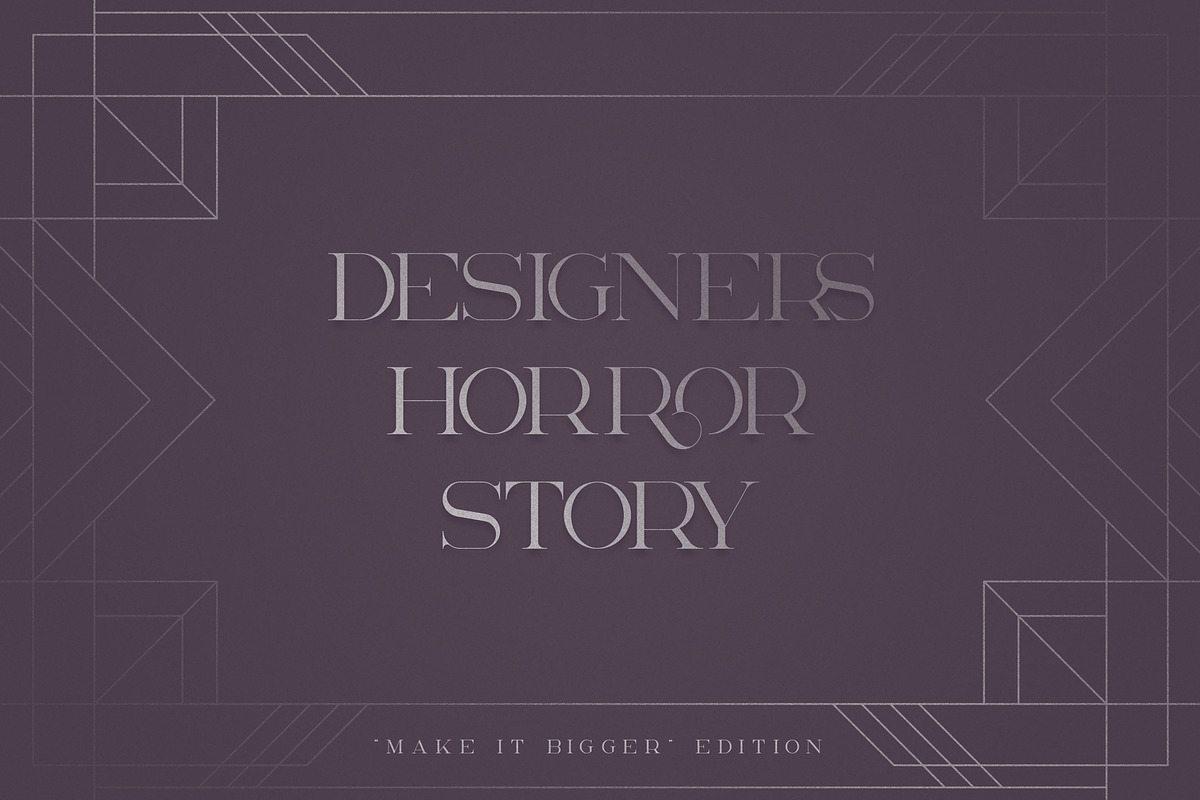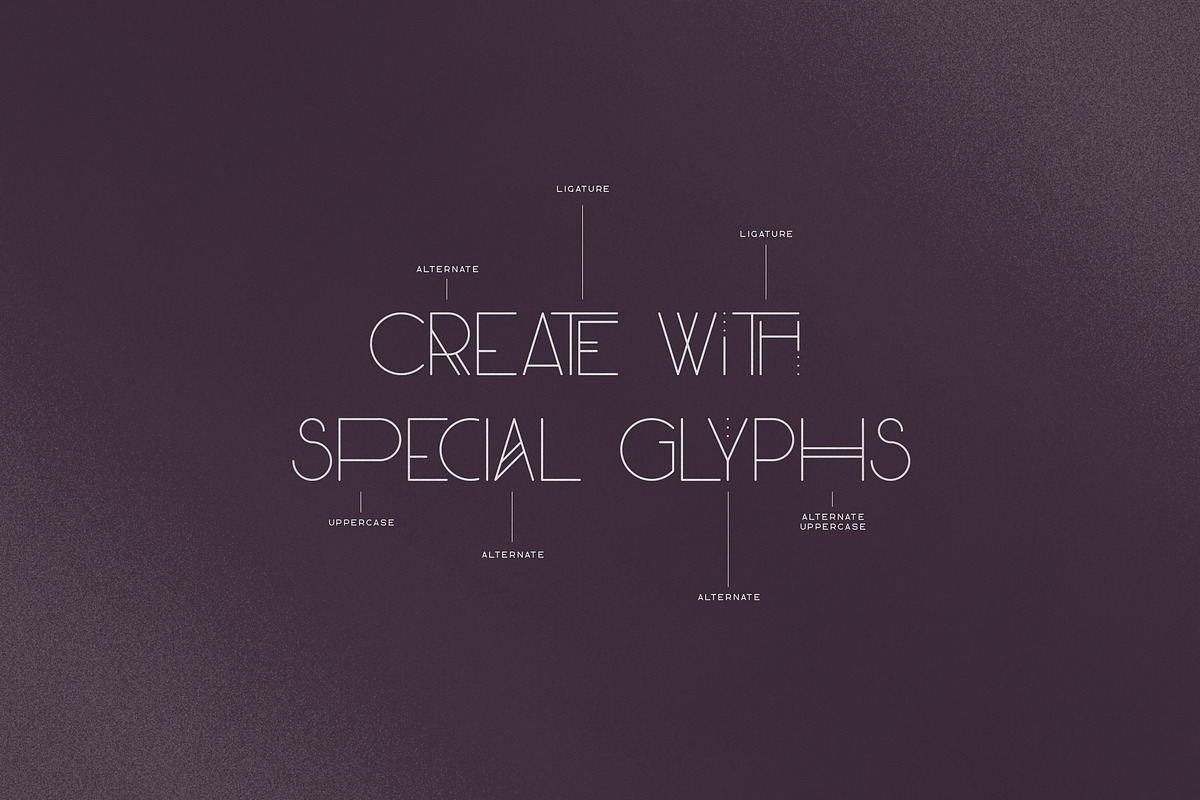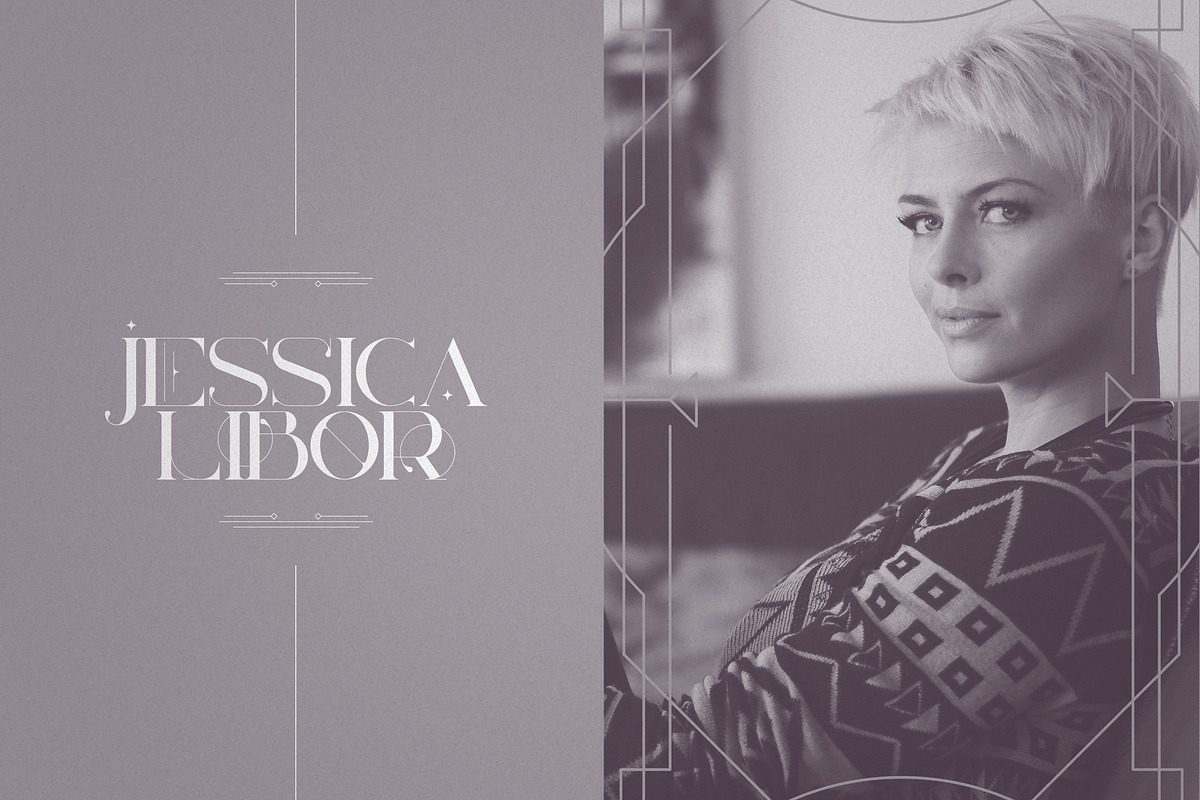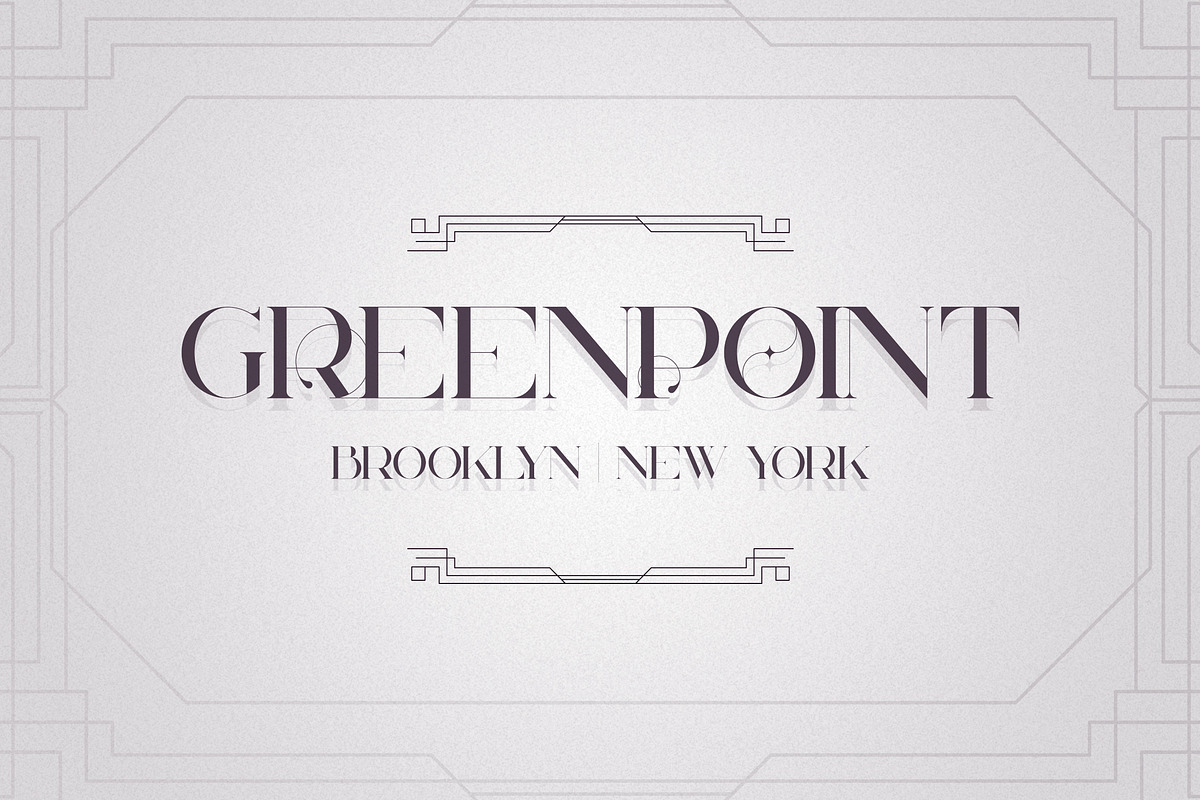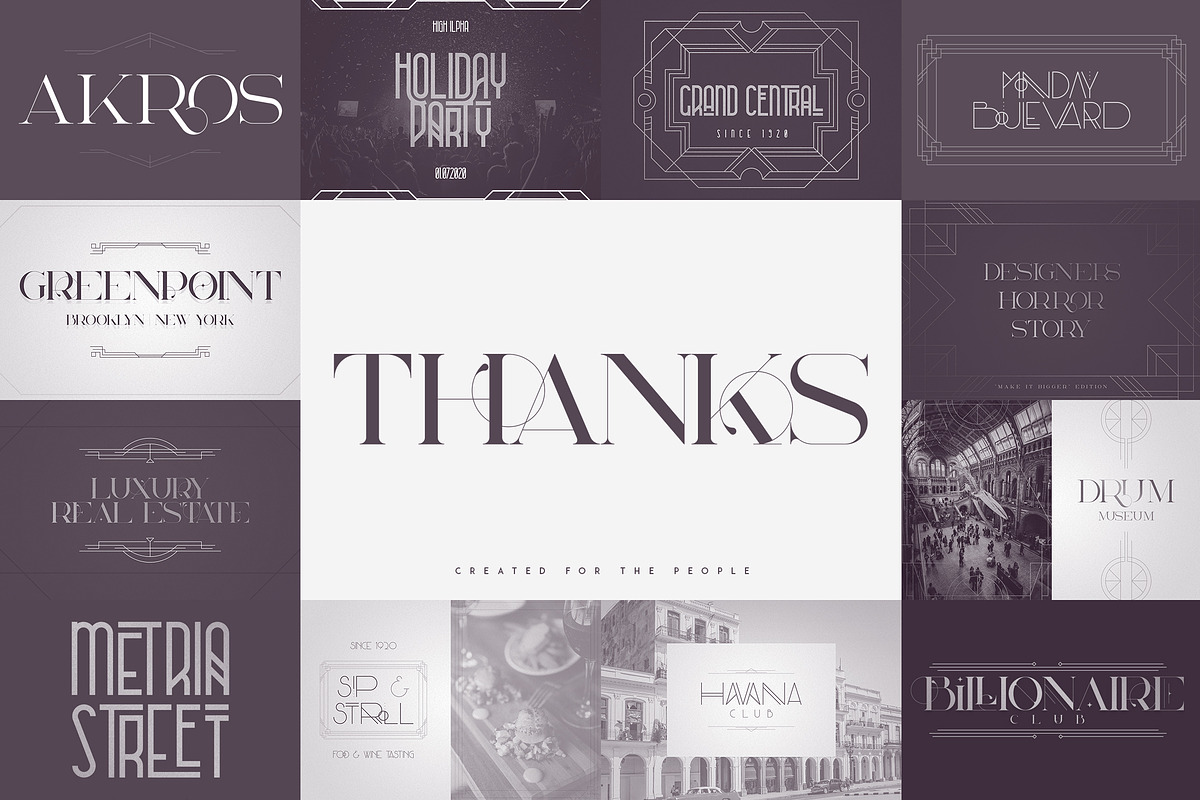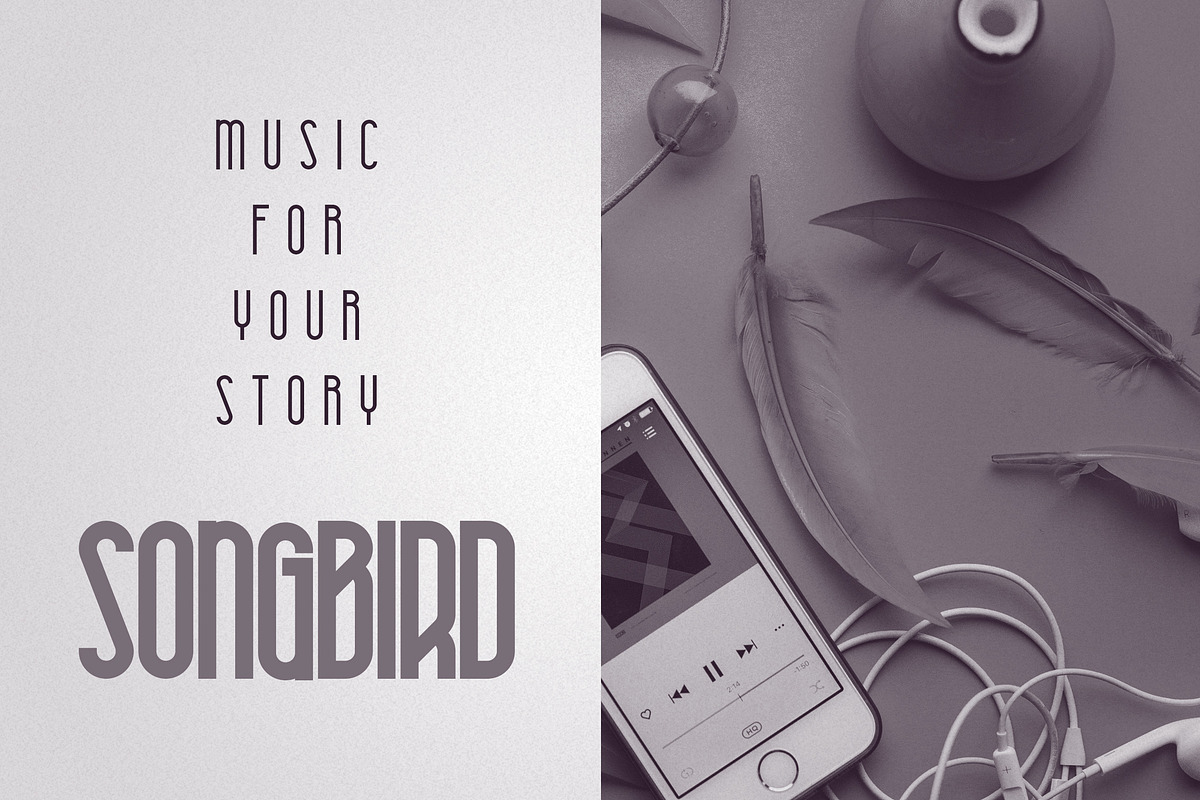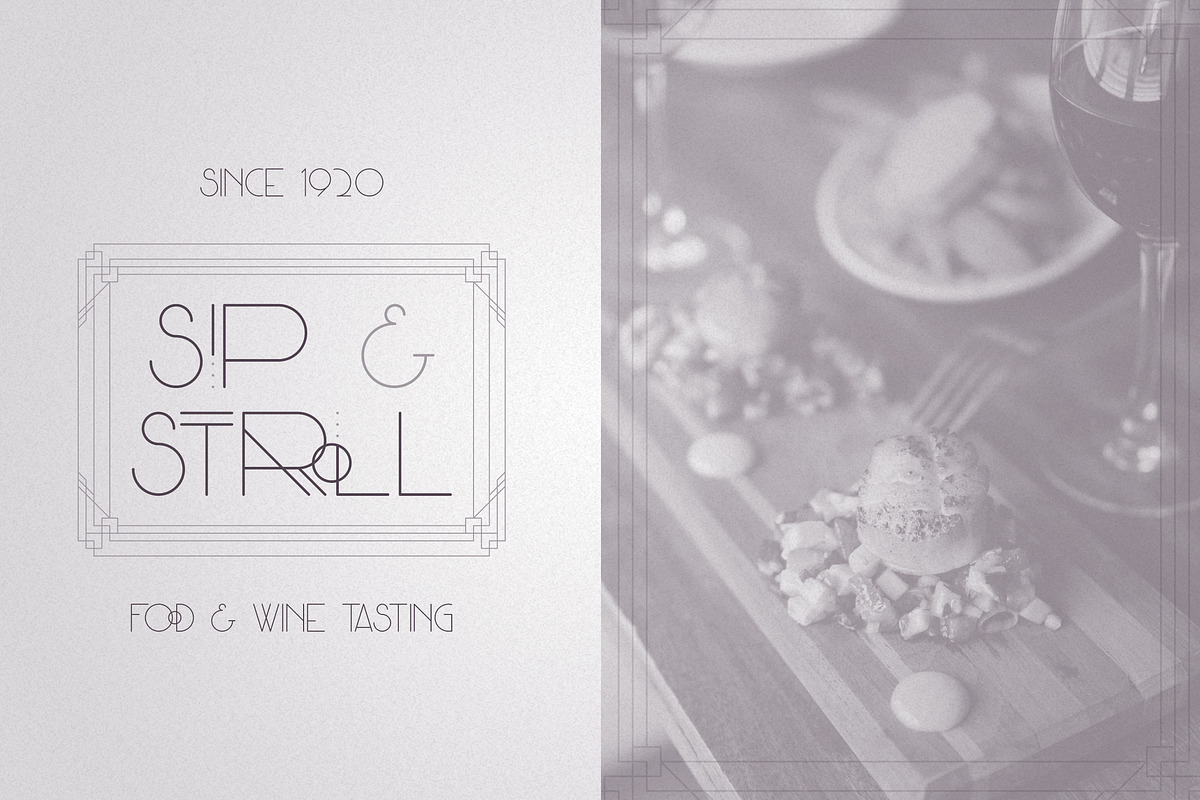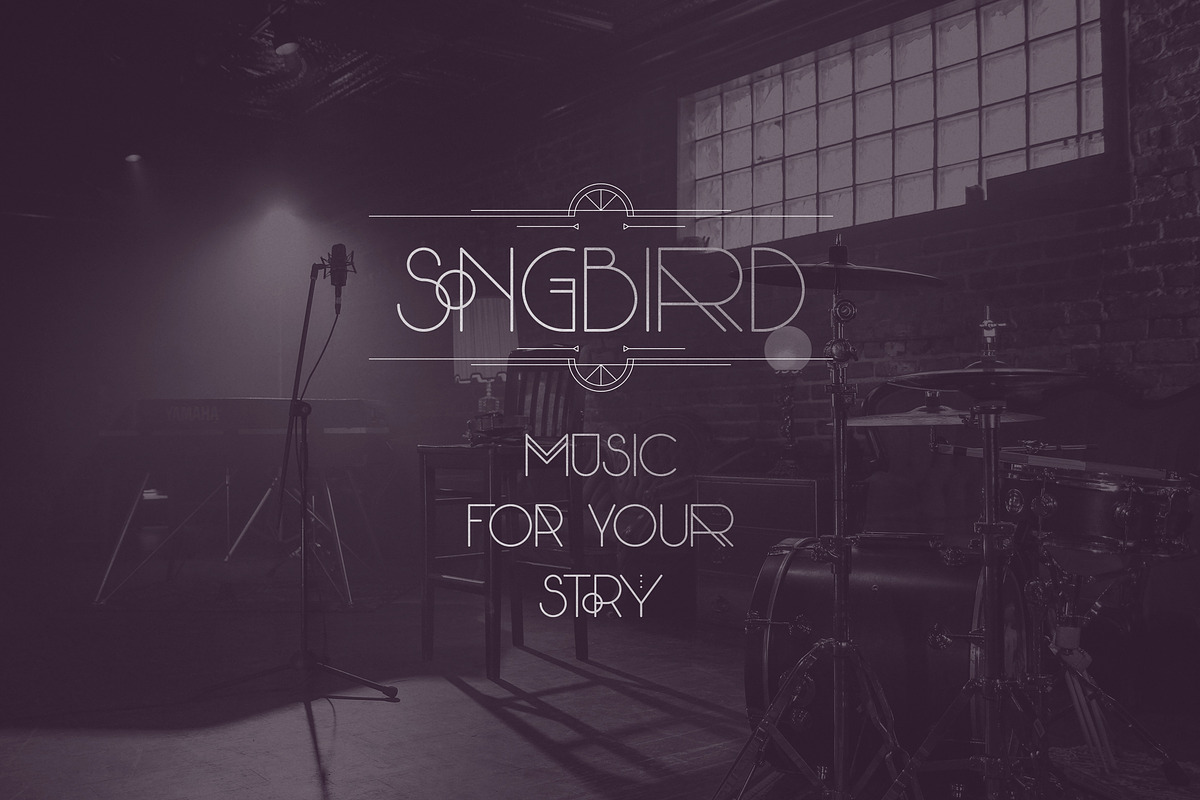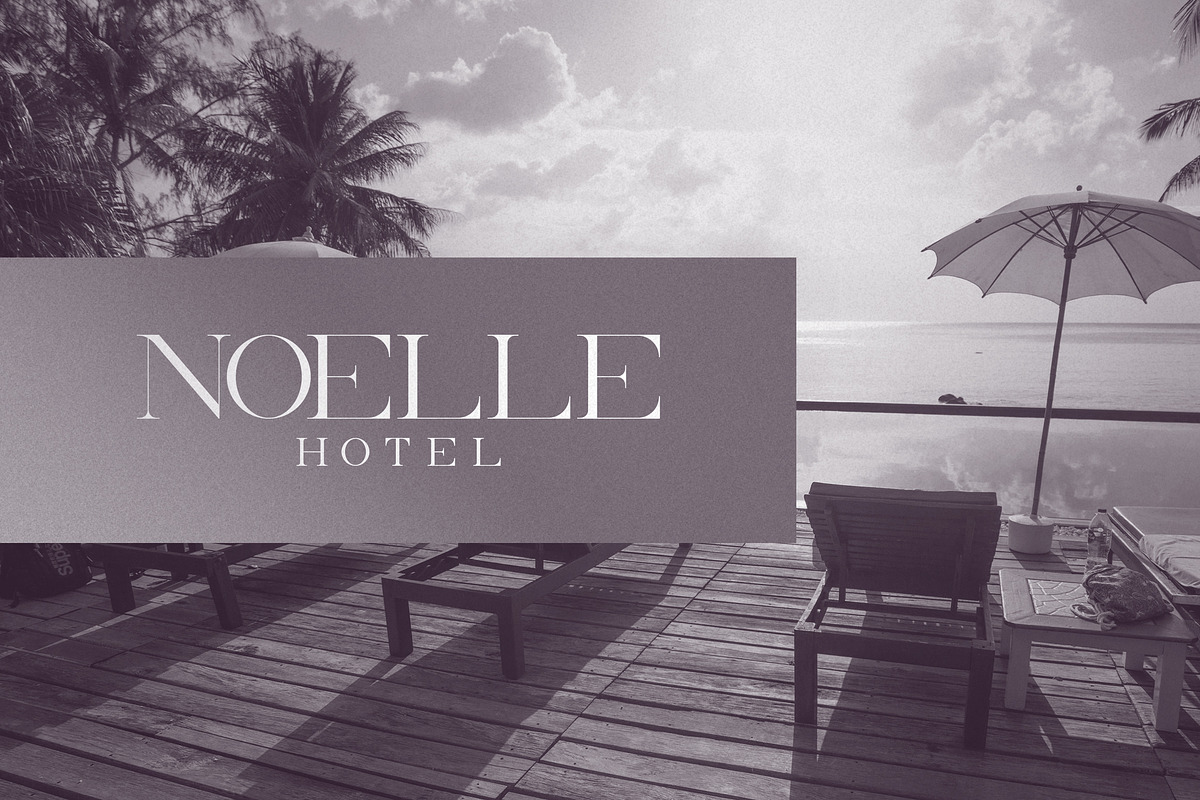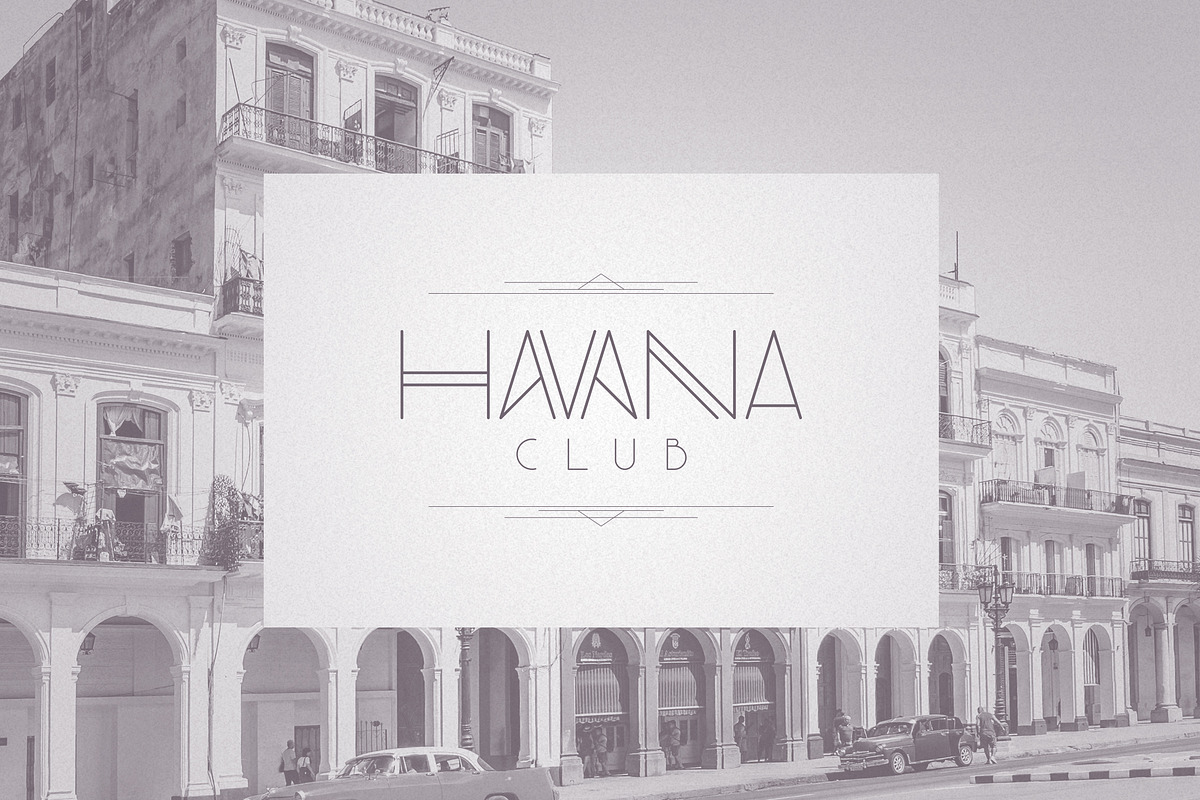
Art Deco Font Collection - 13 fonts
Introducing The Art Deco Font Collection - fonts + extras
The Art Deco Font Collection is vintage, elegant bundle loaded with 13 fonts, frames, dividers. They are very versatile fonts that works great in large and small sizes.
This collection is perfect for branding projects, home-ware designs, product packaging, magazine headers - or simply as a stylish text overlay to any background image.
In this collection you will find :
- Uppercase, numeral, punctuation & Symbol
- Light
- Bold
- Black
- 6 frames
- Lines
- Uppercase, numeral, punctuation & Symbol
- Light
- Bold
- Black
- 6 frames
- Lines
- Alternate glyphs
- Uppercase, numeral, punctuation & Symbol
- 6 frames
- Lines
- Alternate glyphs
- Uppercase, lowercase, numeral, punctuation & Symbol
- Light
- Bold
- Black
- Alternate glyphs